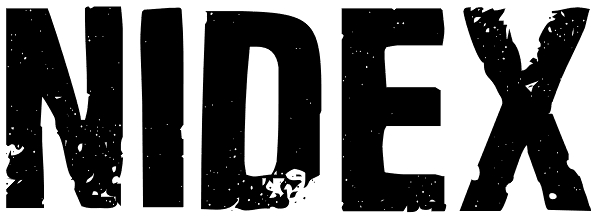
Nidex
Nidex is a caps-only industrial distressed font, ideal for titles, display and headlines, rough and ready, and coming with all the usual accented characters and an extensive set of punctuation. The misprinted effect is central to the font’s design...